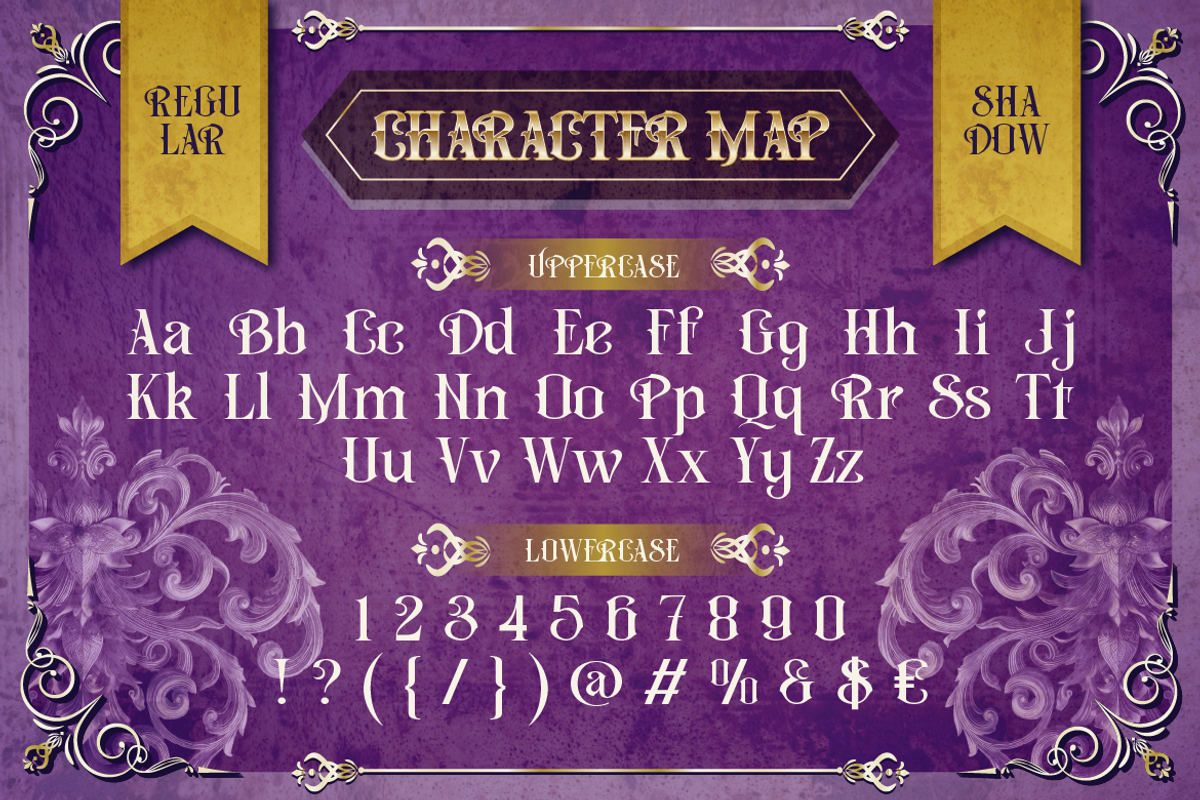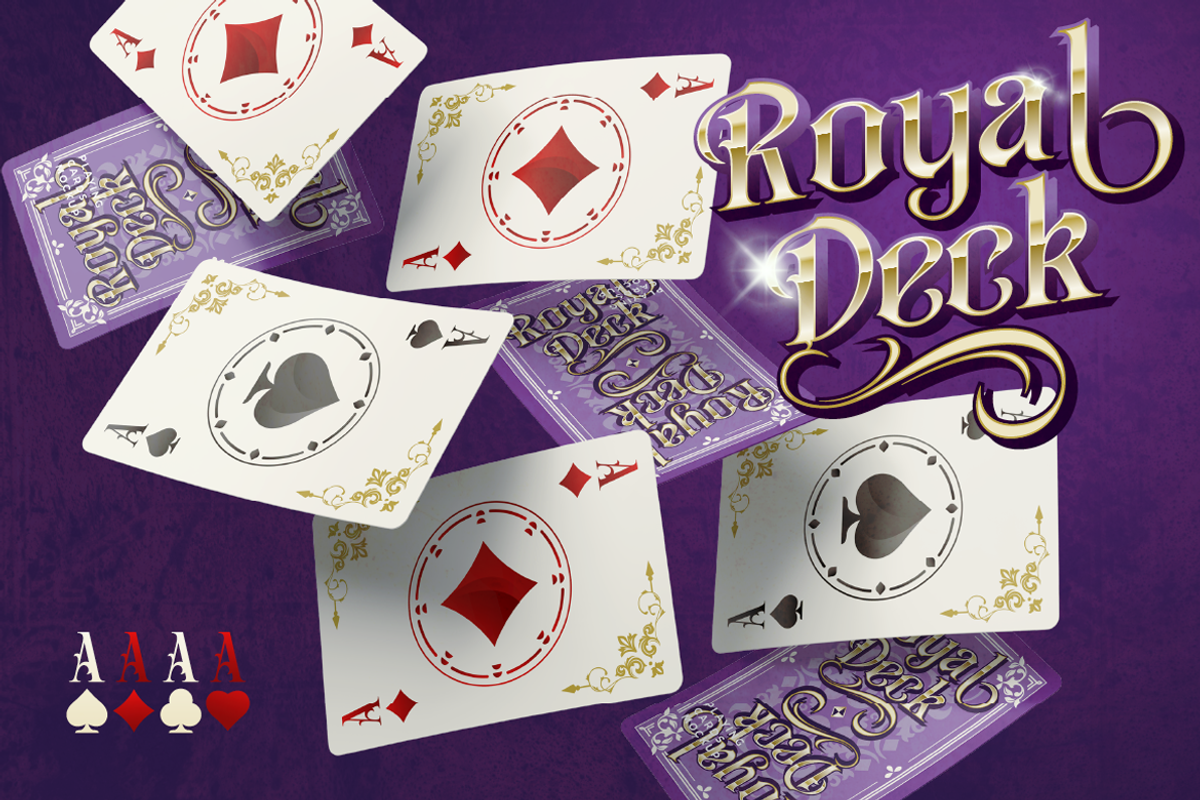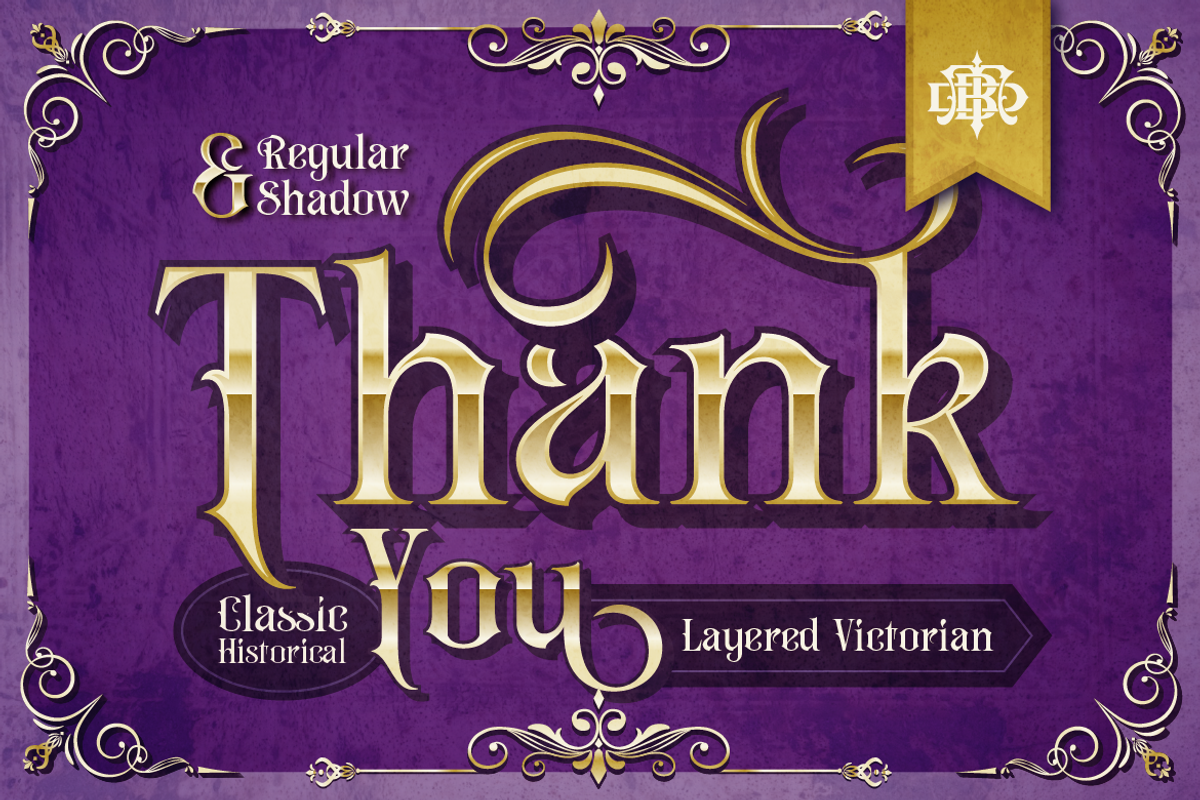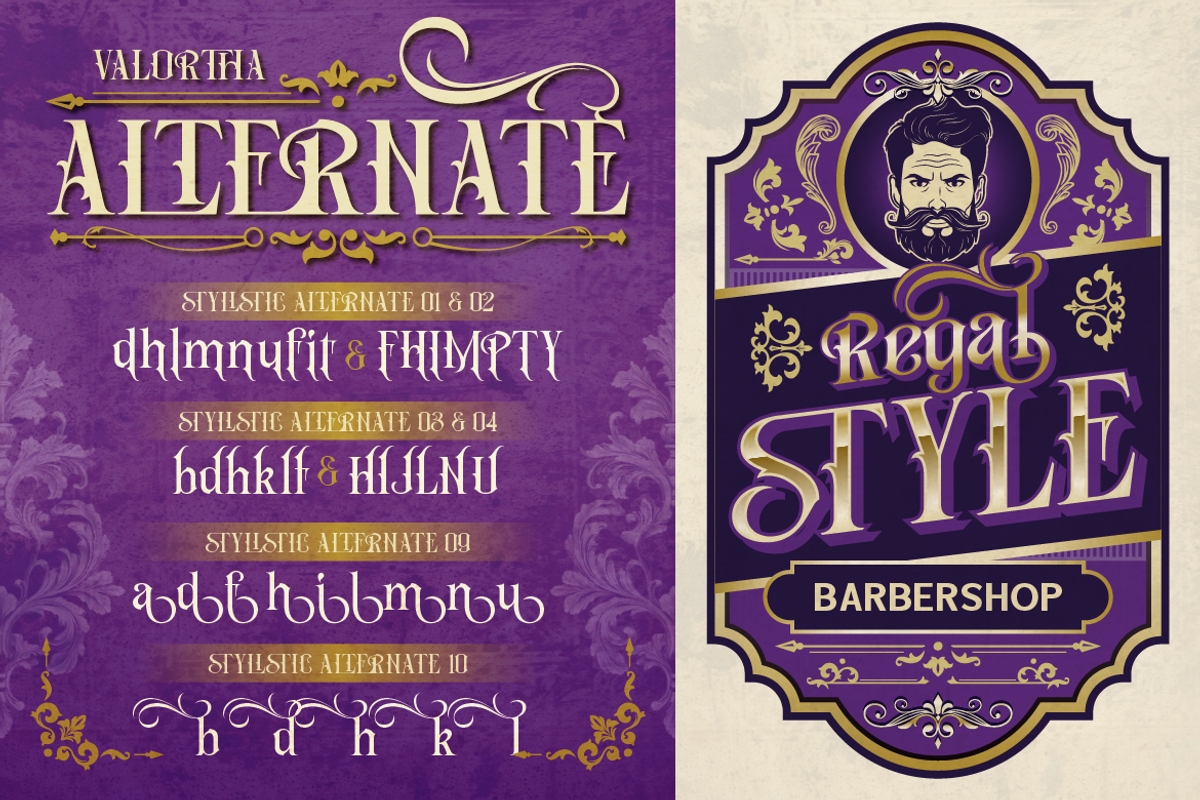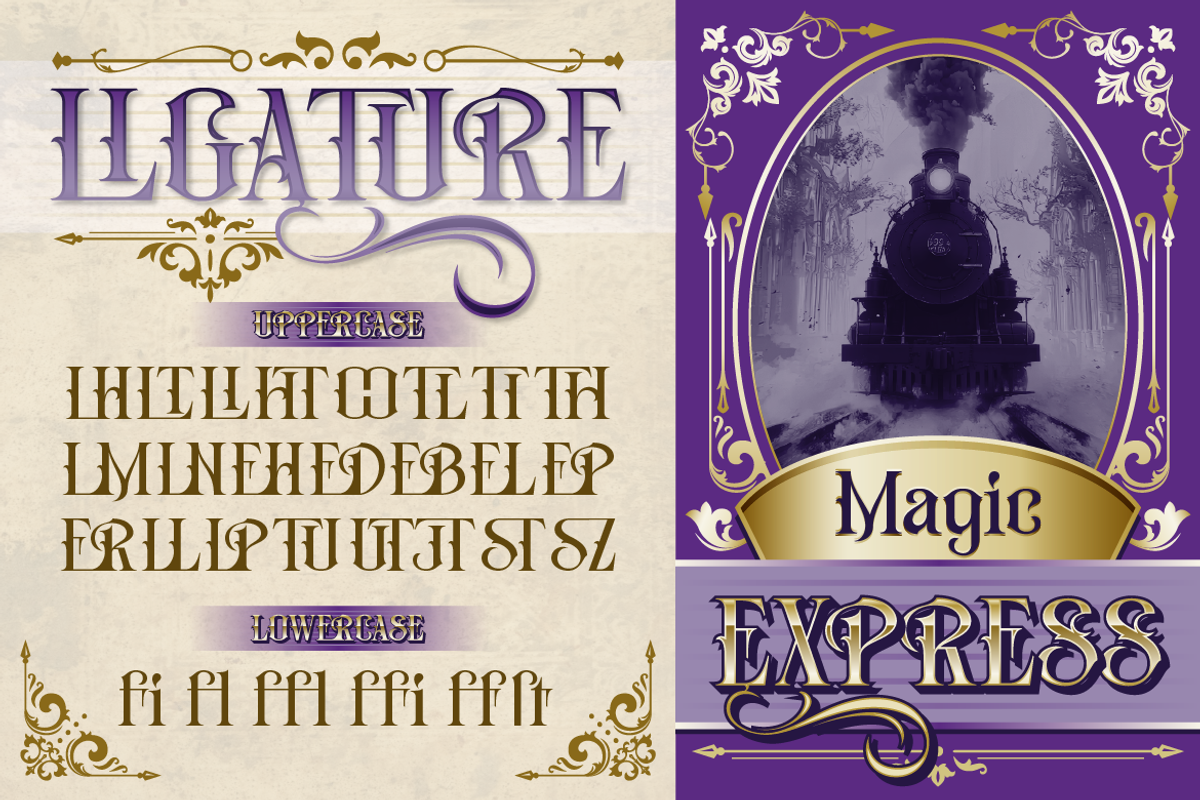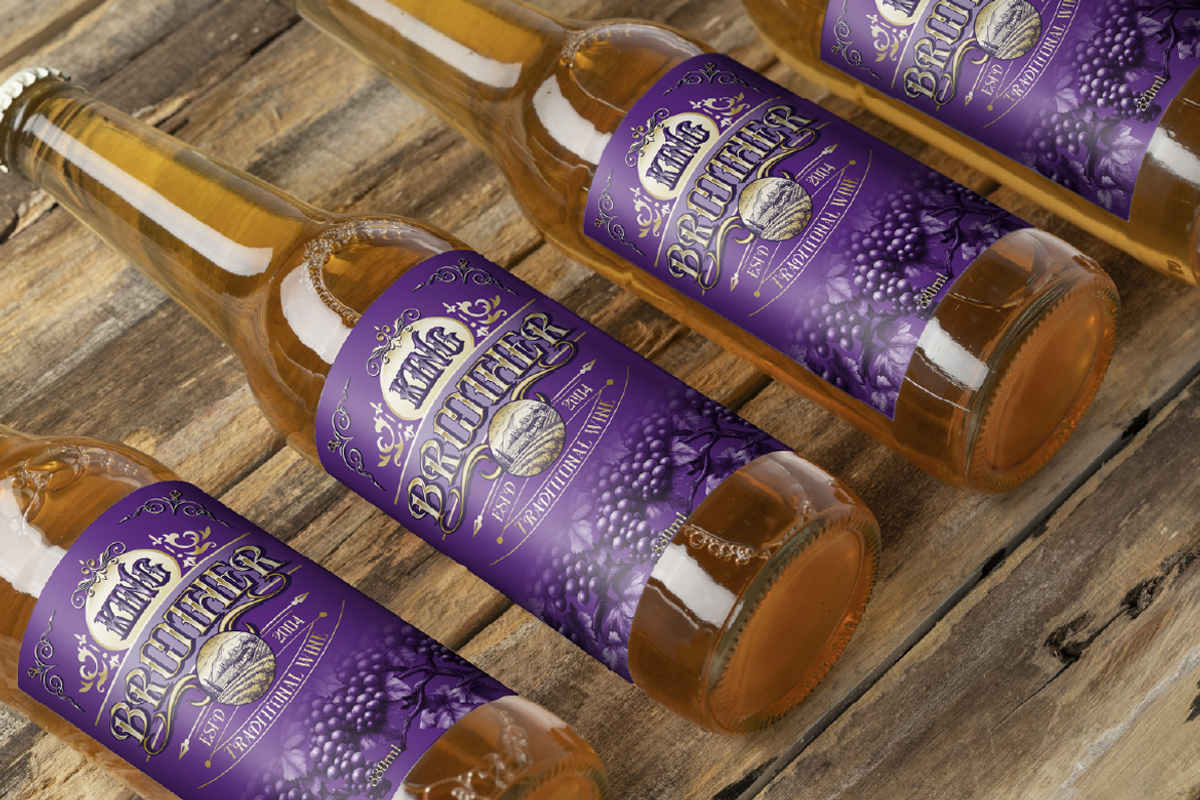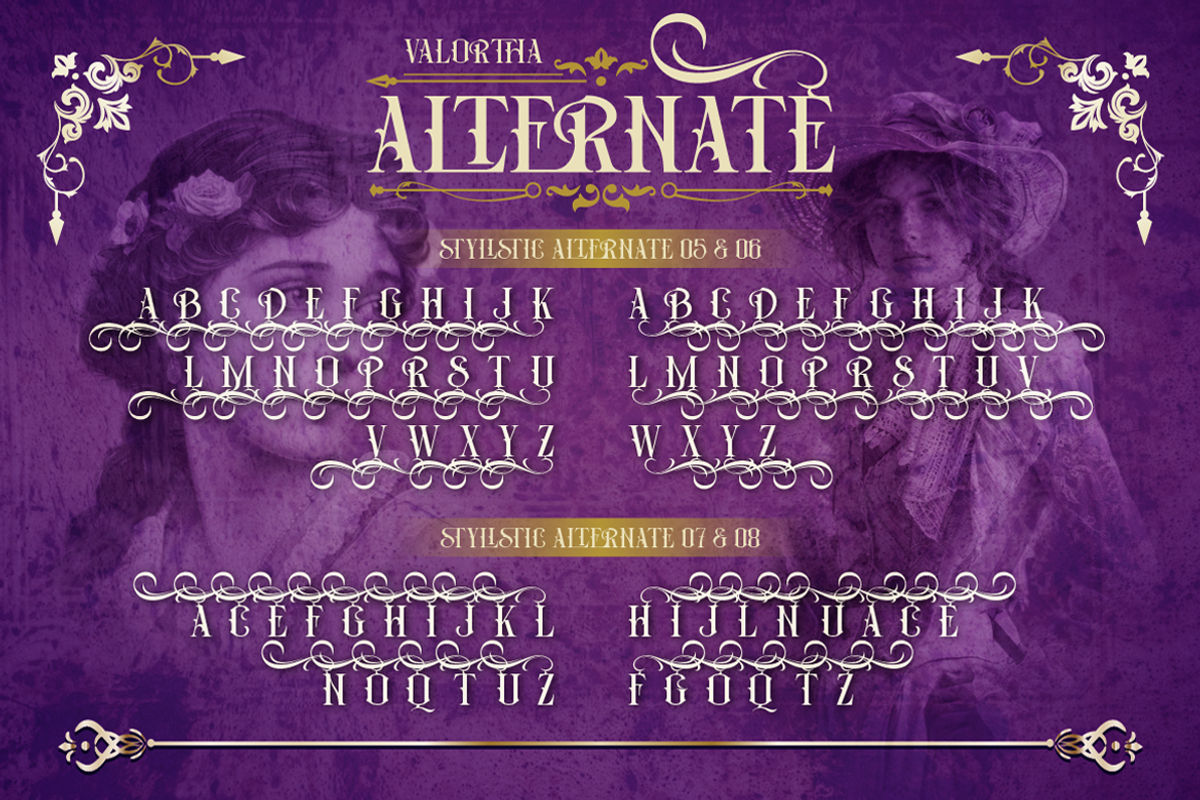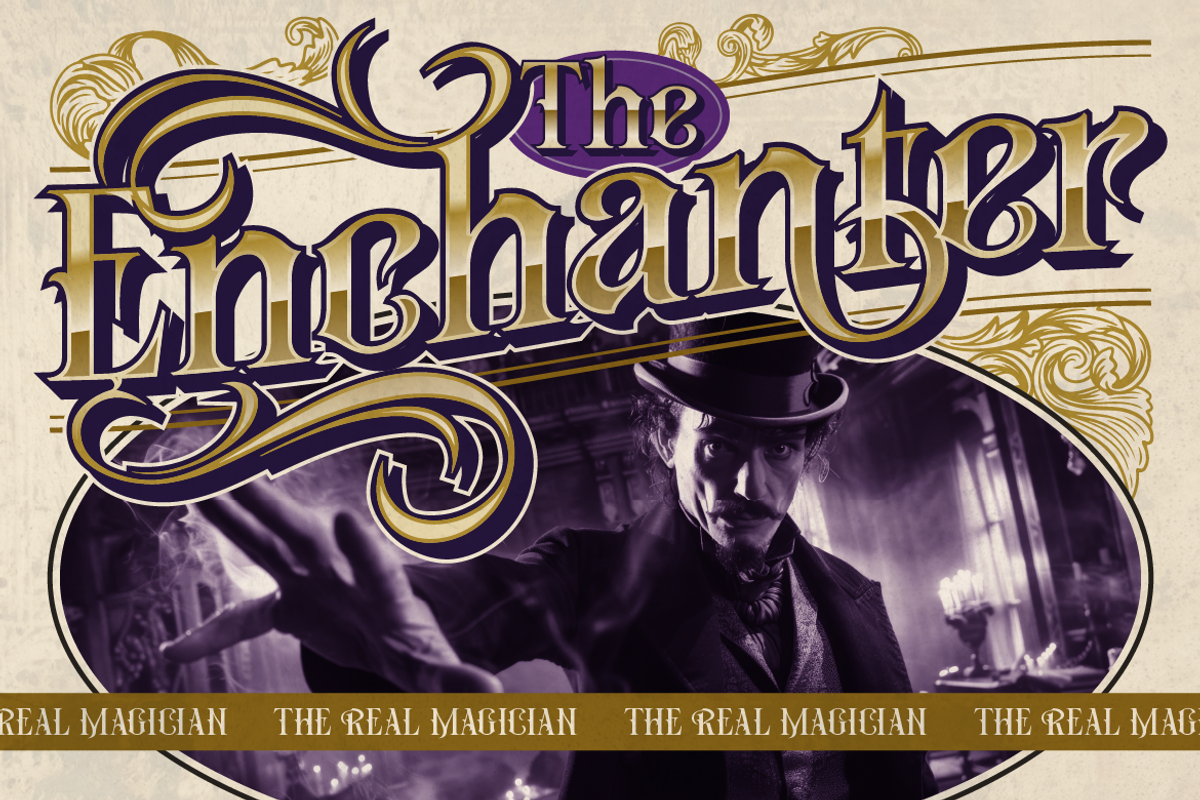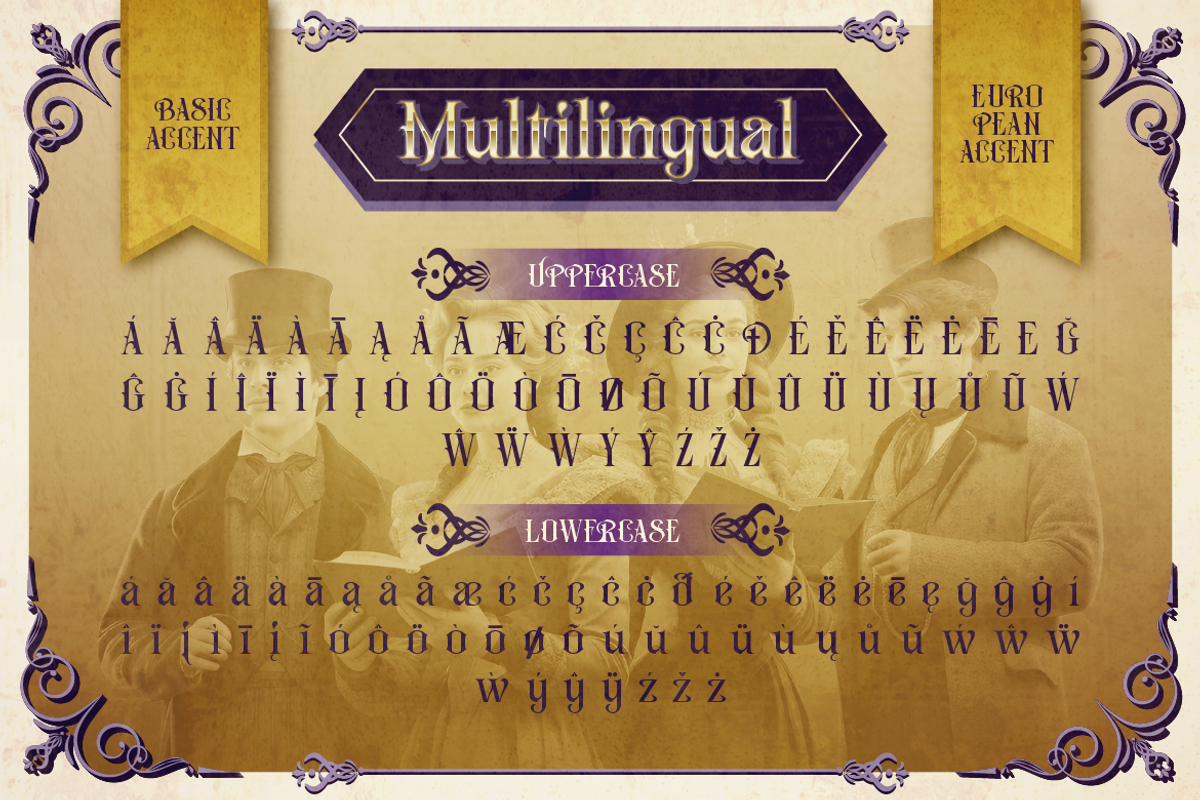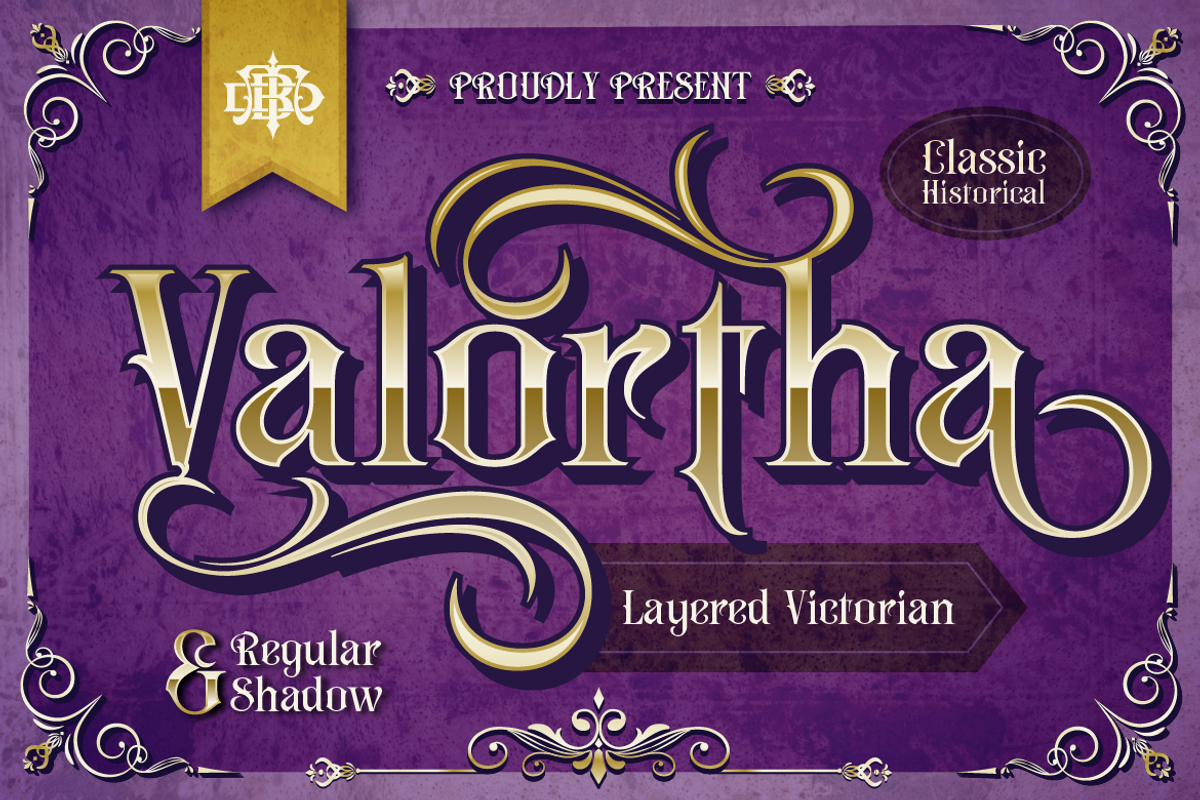
Valortha - Classic Victorian
Step back into an era of majestic grandeur with Valortha, a classic historical Victorian display font handcrafted by Burntilldead Studio. Inspired by vintage 19th-century typography, royal heraldry, and ornate label designs, Valortha combines sharp, elegant serifs with flowing, decorative swashes.
Valortha comes equipped with 2 stackable font styles—Regular and Shadow—allowing you to layer your headlines effortlessly for a sophisticated 3D dimensional effect. Packed with rich OpenType features, including dramatic swash alternates, ligatures, and multilingual support, Valortha offers endless versatility for high-end luxury branding.
Vintage Wine & Spirits Bottle Labels, Brewery Packaging
Royal Playing Cards, Magic Deck Designs & Tarot Cards
Vintage Barbershop Signage, Cigarettes & Cigar Box Branding
Luxury Logo Identity, Monograms & Crests
Victorian Event Posters, Book Covers & Historical Banners